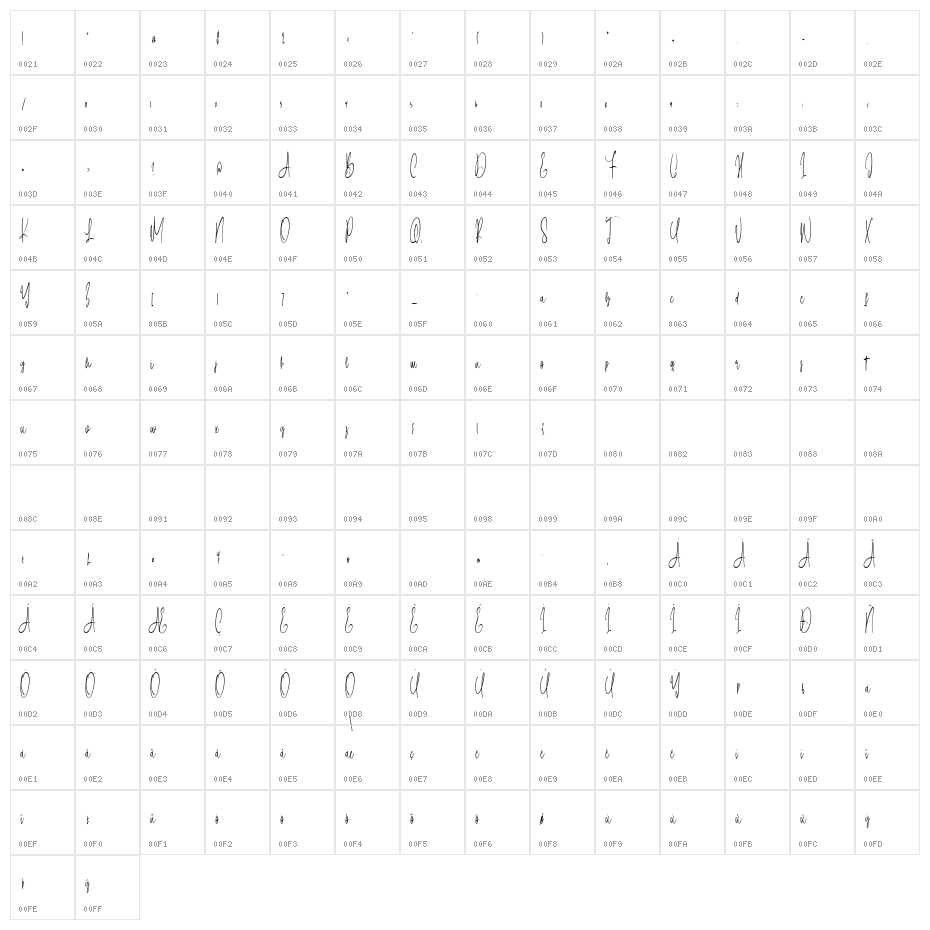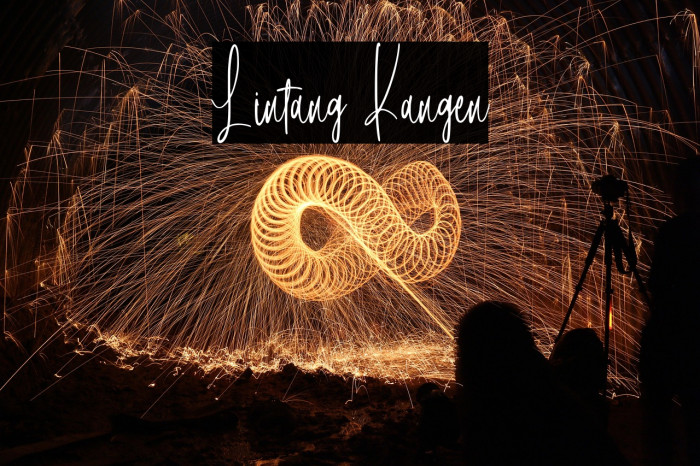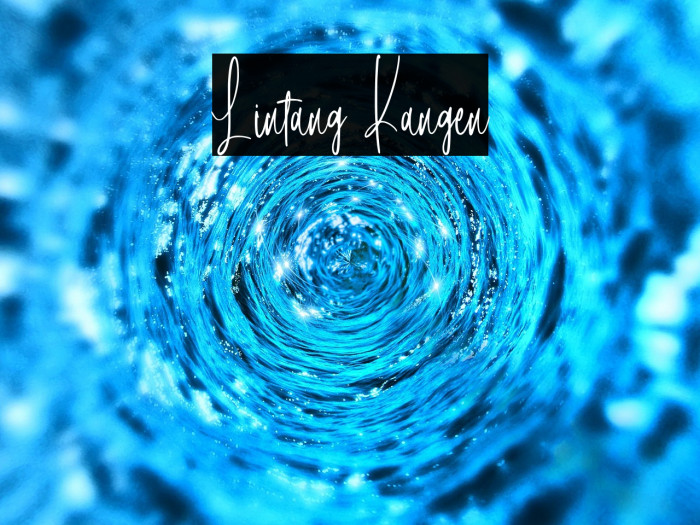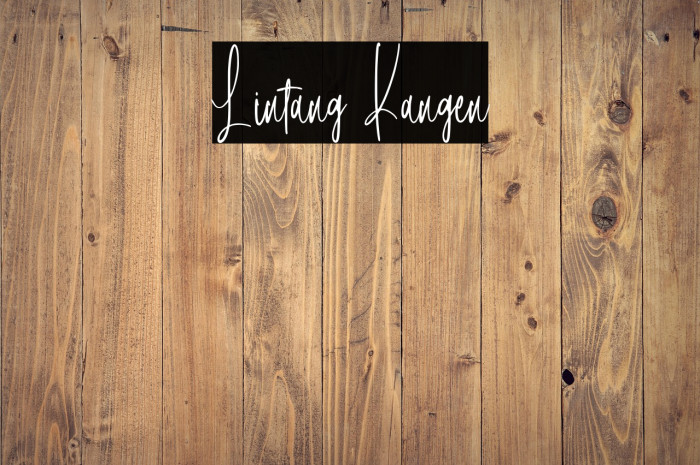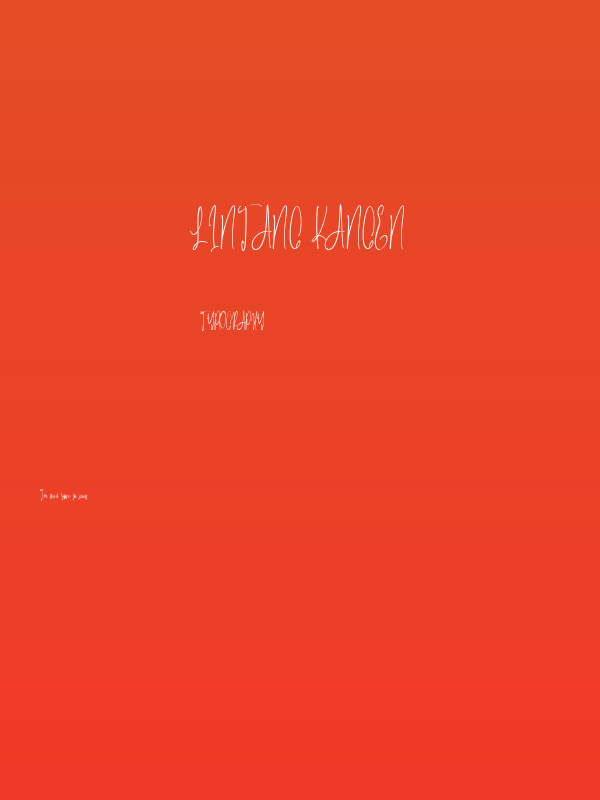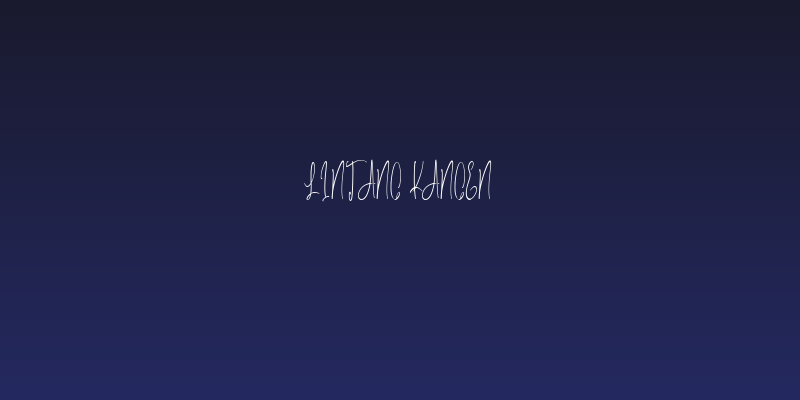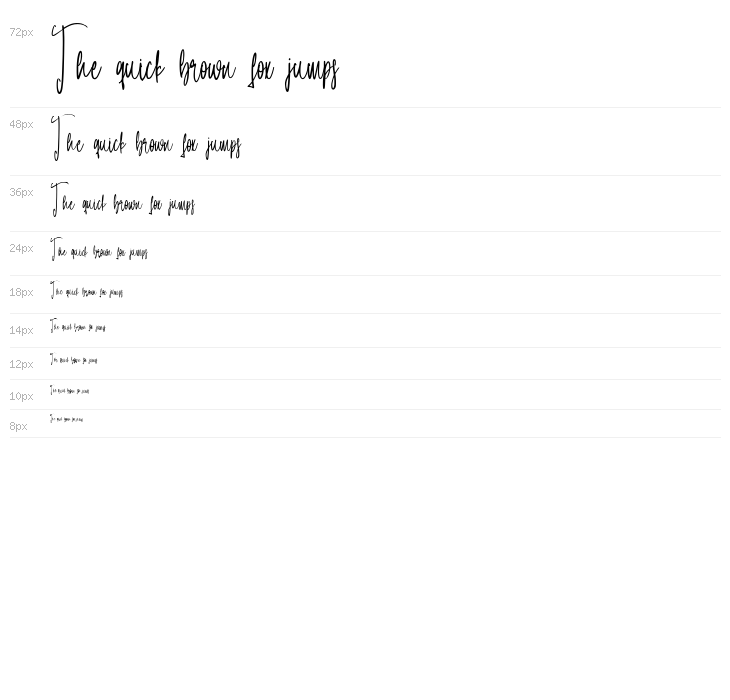
Lintang Kangen Font
Lintang Kangen Description
This font exhibits a playful and whimsical handwritten style, characterized by its flowing, cursive-like strokes. The uppercase letters are tall and elegant, with a slight slant that adds a dynamic feel. The lowercase letters maintain a consistent style, with smooth curves and a friendly appearance. The numbers are clear and legible, matching the overall aesthetic. Special characters are thoughtfully designed, integrating seamlessly with the rest of the font. This font's unique charm and personality make it suitable for creative and informal projects.
| Proposed Projects | Ideal for greeting cards, invitations, personal branding, and creative projects. |